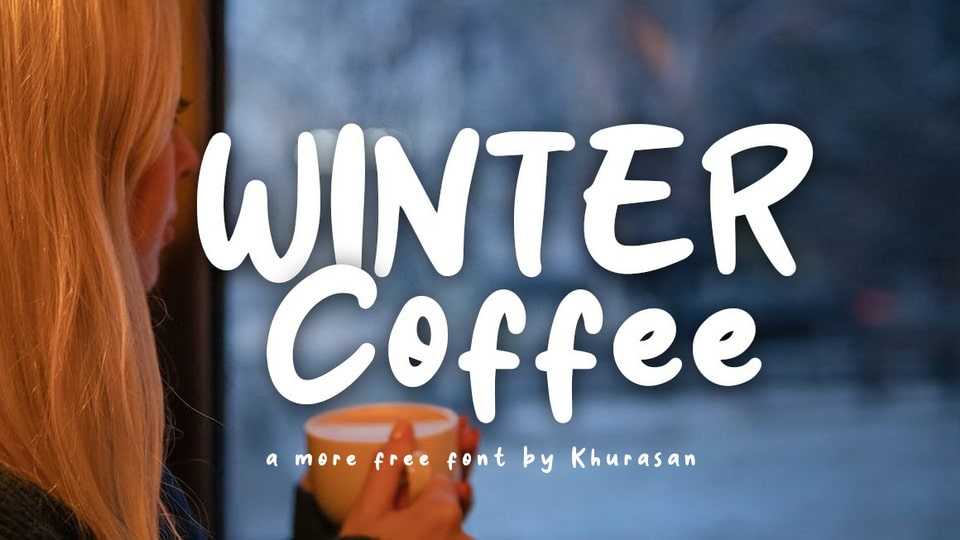
Download Winter Coffee font, an organic and warm handwritten typeface. Winter Coffee is perfect for posters, logos, magazines, book covers, banners, and many more.